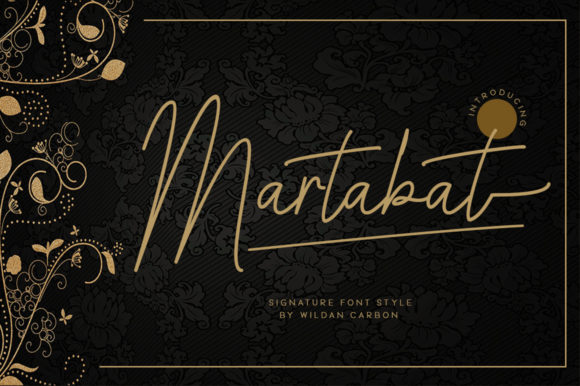
Prepare to be spellbound by Martabat, the captivating script font that will cast a magical charm over your designs. Immerse yourself in the enchanting world of Halloween with this hauntingly beautiful font, perfect for creating signage that will send shivers down your spine.
With Martabat as your design companion, you'll conjure up logos that bewitch the eye, craft invitations that whisper secrets, and produce business cards that leave a lasting impression. Your PowerPoint presentations will transform into haunting masterpieces, captivating your audience with their eerie elegance.
Martabat's charm extends beyond the realm of the supernatural. Its versatility knows no bounds, lending itself effortlessly to a myriad of design endeavors. Let your imagination run wild as you adorn your designs with this captivating font, creating works of art that will leave your audience spellbound.
But Martabat's allure doesn't end there. Its PUA encoding grants you the power to unleash its full potential, granting you effortless access to a treasure trove of glyphs and swashes. With Martabat, your creativity knows no boundaries, and your designs will possess a haunting beauty that will turn heads.
Step into the realm of enchantment with Martabat, the font that will ignite your imagination and leave an unforgettable mark on your designs.